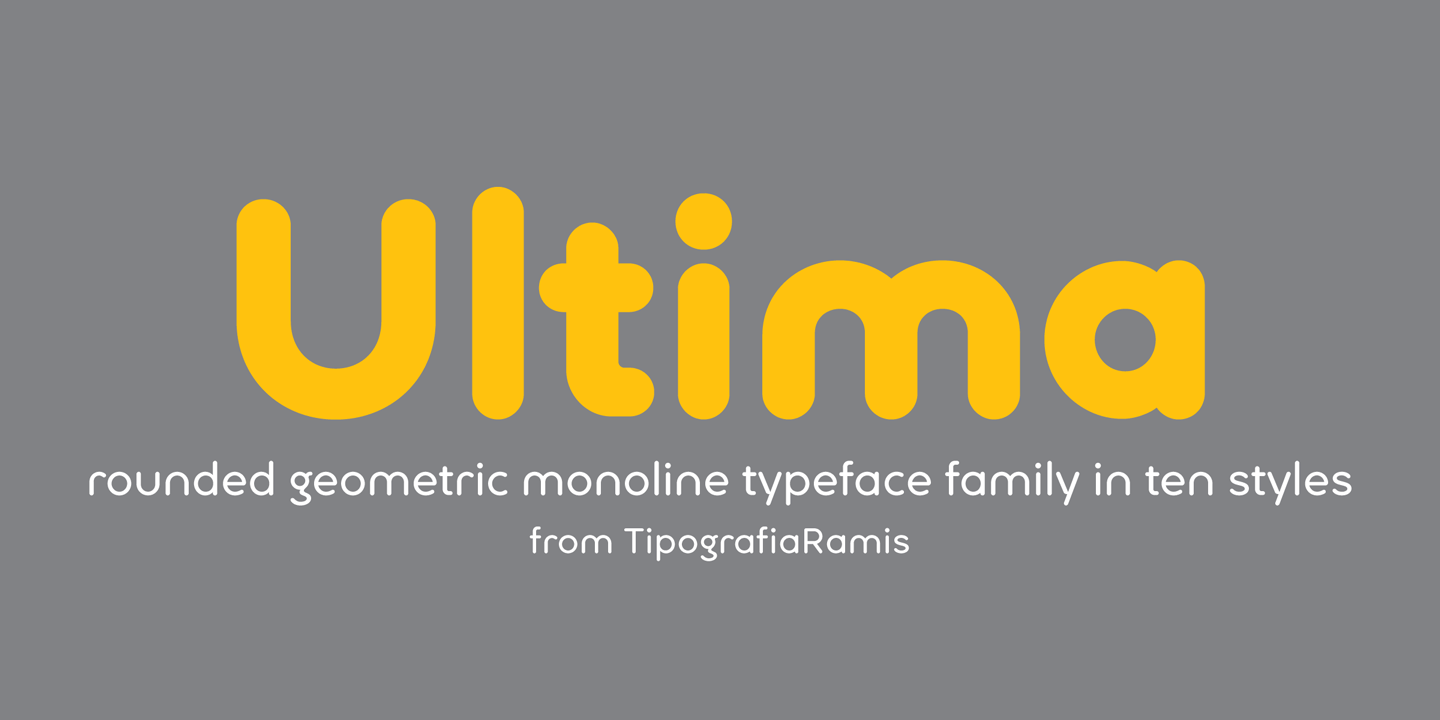
Looking to imbue your designs with a sense of cutting-edge modernity, minimalist elegance, and impactful presence? Ultima Font Free Download offers an exceptional opportunity to explore a sleek and versatile typeface. Remember, though, while an Ultima Font Free Download is usually available for personal and testing purposes, a commercial license is required for any professional or revenue-generating projects. This is crucial for legal compliance and supports the talented font designers.
The Ultima Font is incredibly versatile and shines in a wide array of applications where clarity, sophistication, and a contemporary aesthetic are paramount. Its often geometric, clean-lined, or subtly futuristic design makes it an excellent choice for tech branding, minimalist website interfaces, and modern architectural presentations. It's ideal for app design, UI/UX elements, and digital dashboards, ensuring effortless readability and a polished user experience. Furthermore, consider Ultima Font for luxury product packaging, high-end fashion editorials, and impactful advertising campaigns that aim for a sophisticated and forward-thinking appeal. Its versatility ensures it can seamlessly transition from commanding headlines to clear body text, maintaining visual harmony and strong communication.
What makes the Ultima Font so exciting is its remarkable ability to blend understated elegance with a distinctive, forward-looking personality. It often features precise curves, balanced proportions, or subtle unique quirks that give it a memorable character without being overly decorative. This characteristic allows it to communicate a sense of innovation, exclusivity, and thoughtful design, making your message resonate with an audience that appreciates refined aesthetics and modern vision. It's a font that doesn't just display text; it enhances the visual narrative, adding a layer of contemporary charm and polished appeal to any creative endeavor. Its unique aesthetic ensures your work will stand out with a memorable and refined presence.
The Ultima Font family typically boasts a comprehensive range of weights to maximize its utility and allow for robust typographic hierarchies. You'll often find a wide selection, from Thin and Light to Regular, Medium, SemiBold, and Bold, usually accompanied by corresponding italic styles. More extensive families might even include ExtraBold or Black weights, providing even greater flexibility for creating distinct visual impacts, from delicate headlines to strong emphasis. This broad spectrum ensures designers can maintain a consistent visual theme while adapting the font to diverse design needs and contexts.